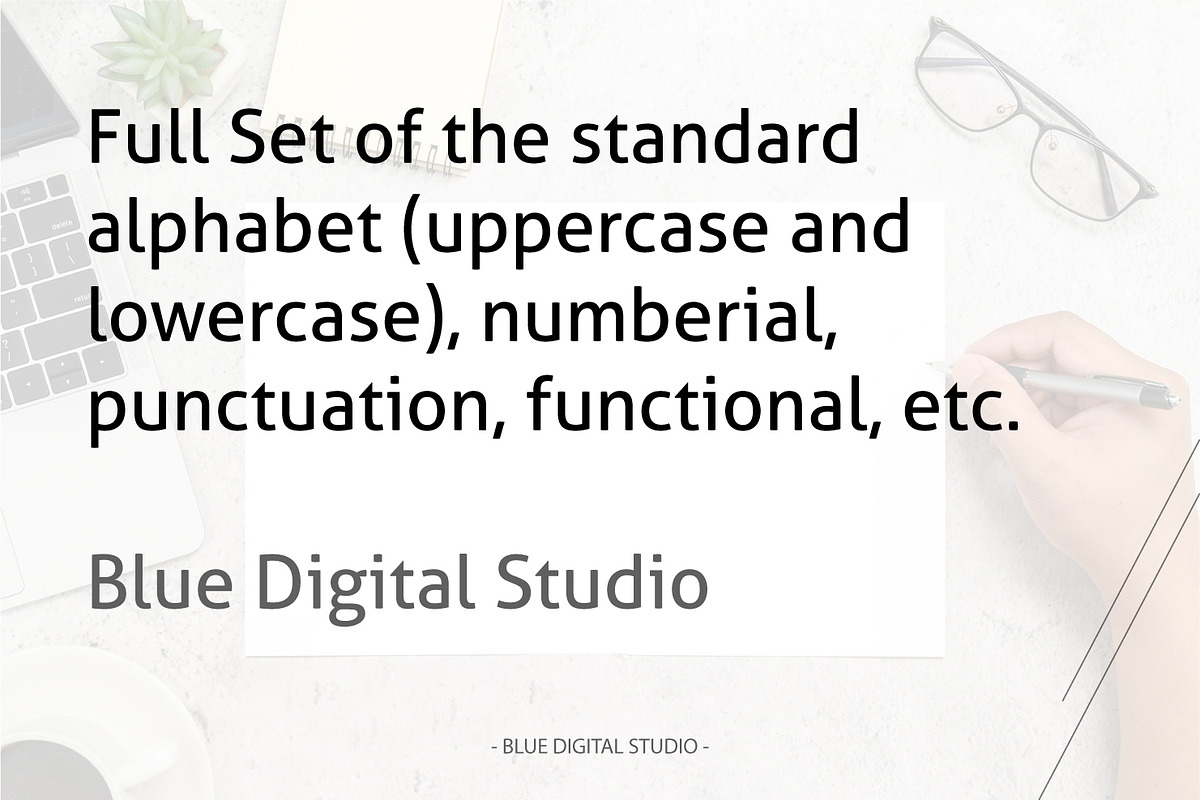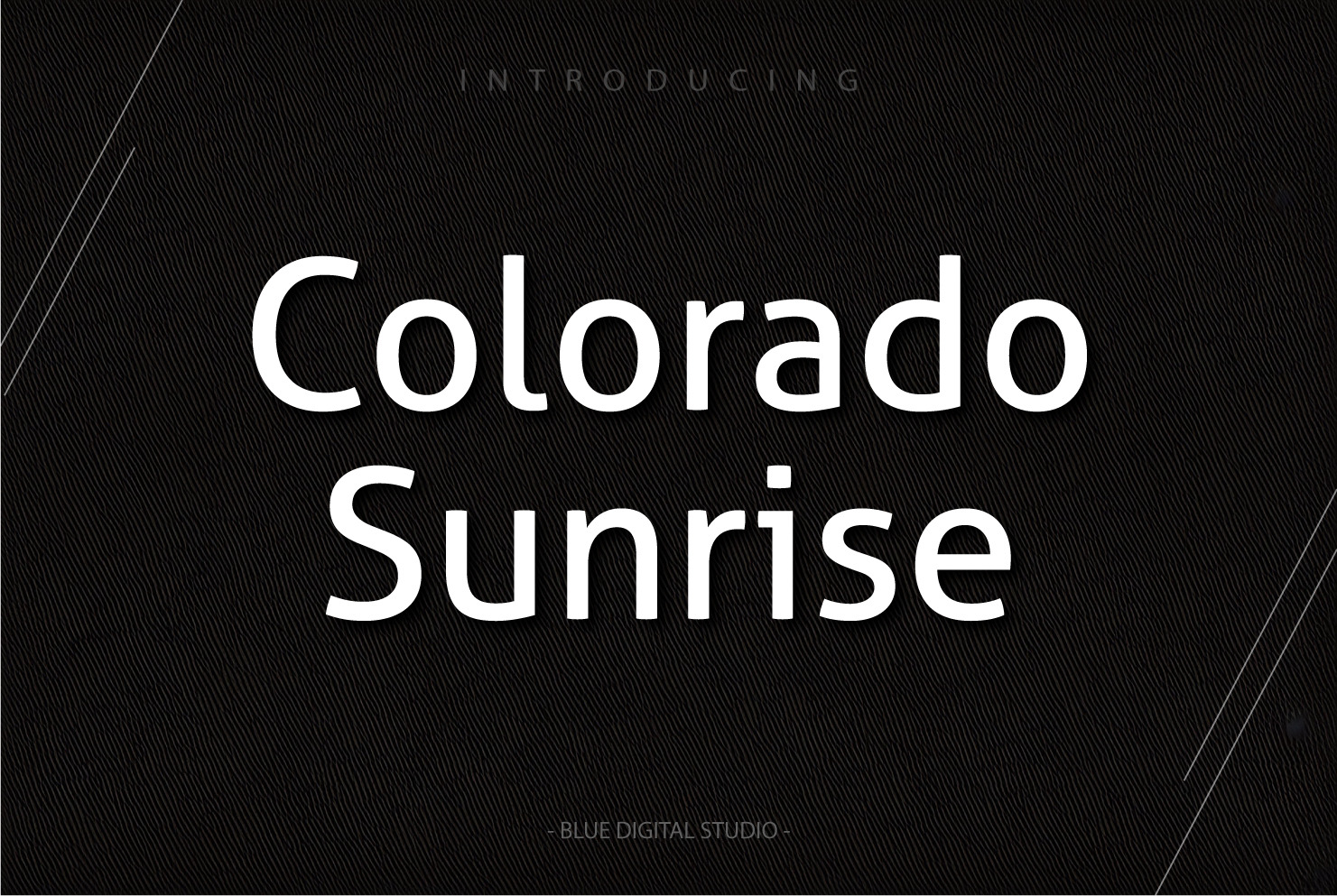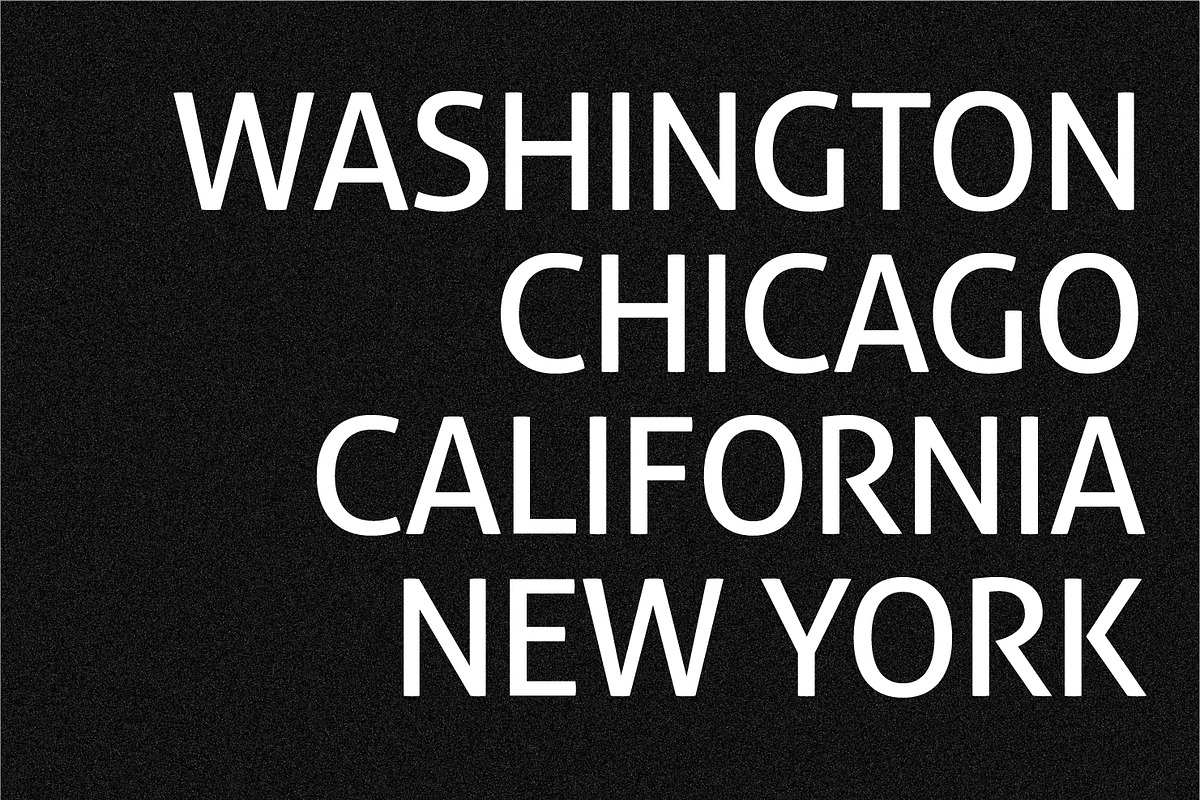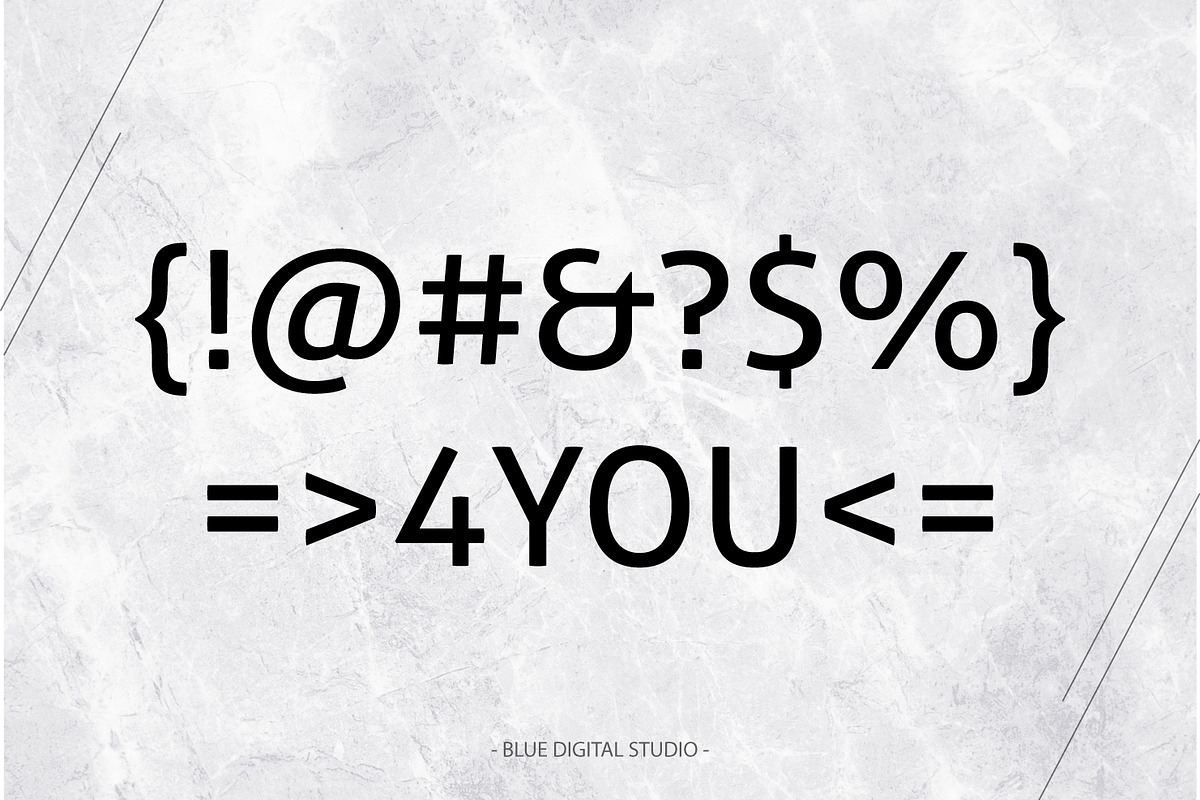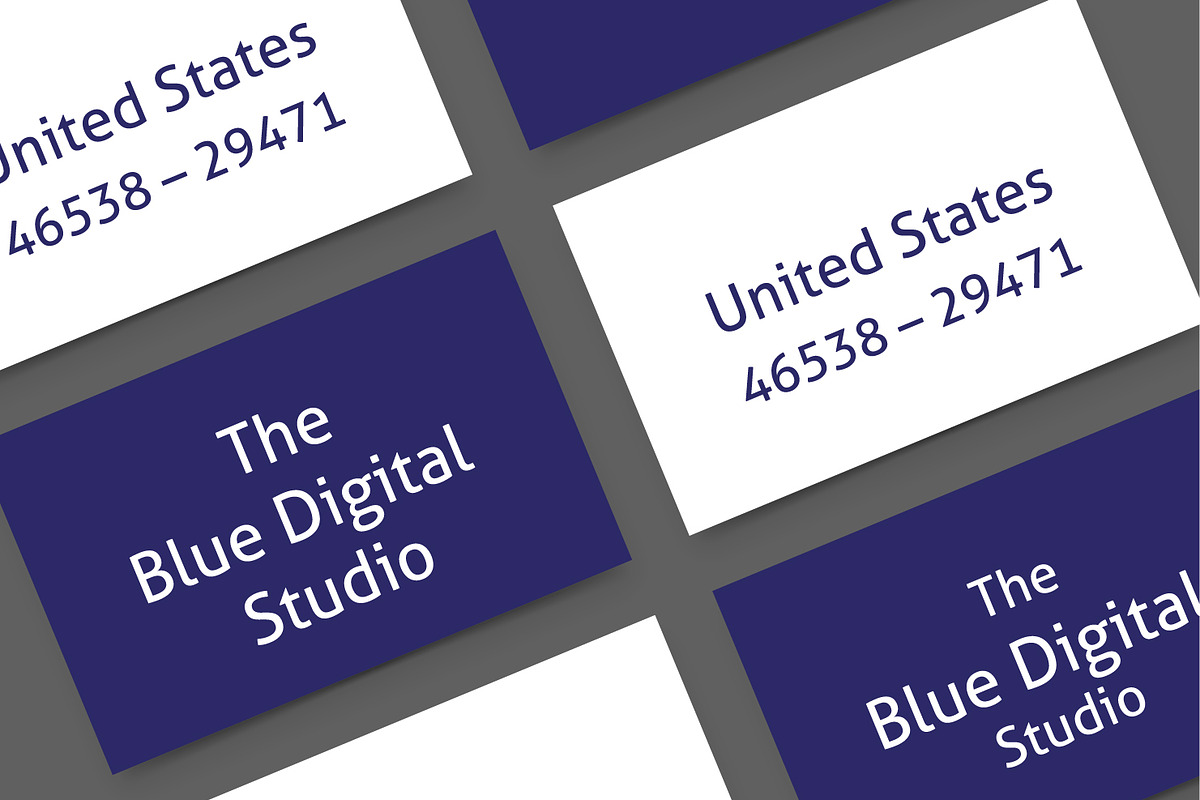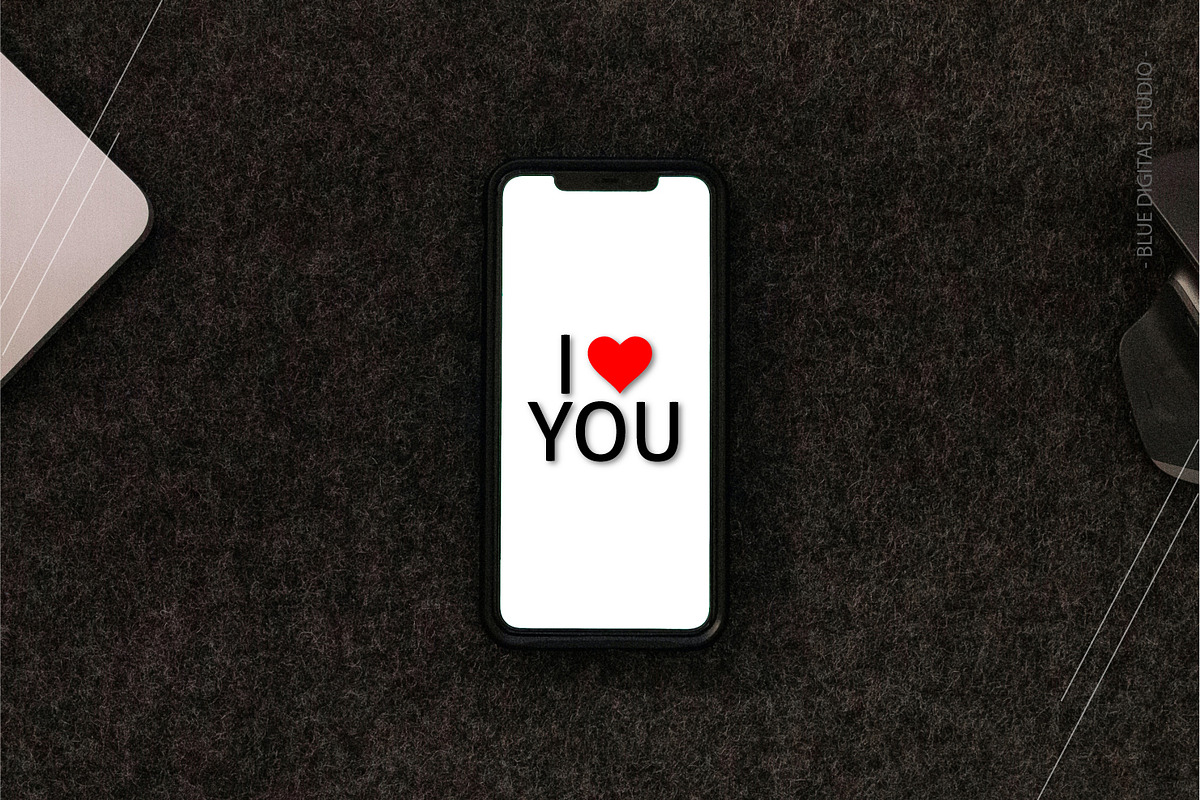
Colorado Sunrise Font | Sans Serif
Colorado Sunrise Font is made mainly for headlines, titles, and other short texts and is well-suited for advertising, branding, logos, social media, prints, shirts, websites, social media quotes, modern and vintage design, etc. This font is a unique design as it can be used for a variety of design styles.
- Full Set of the standard alphabet (uppercase and lowercase), numberial, punctuation, functional, etc.
- Supports multiple languages and accented characters for designers worldwide.